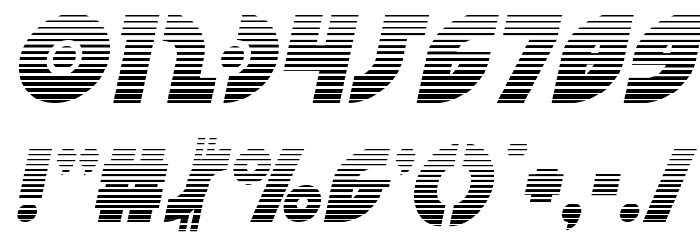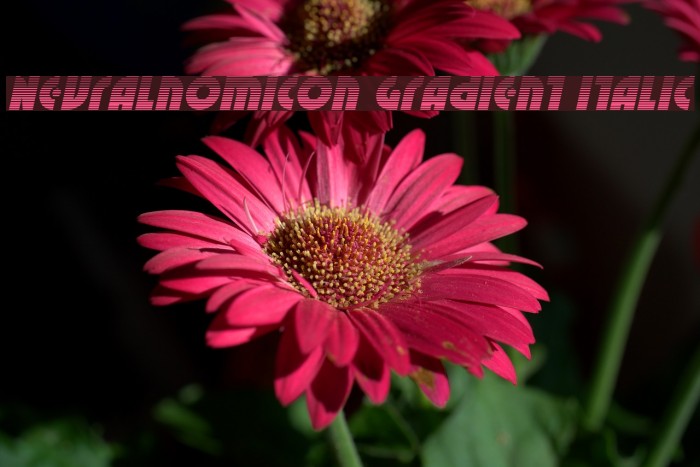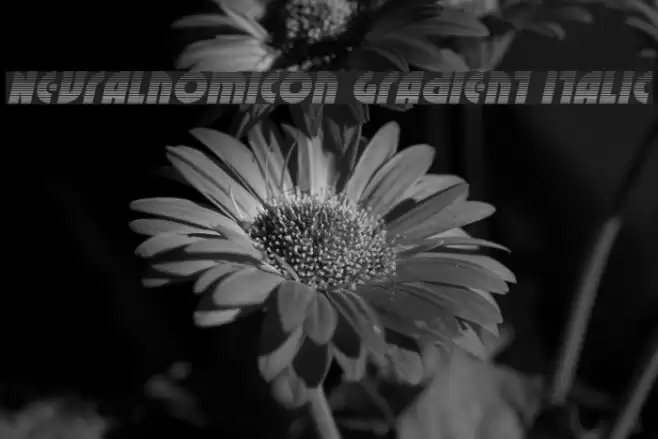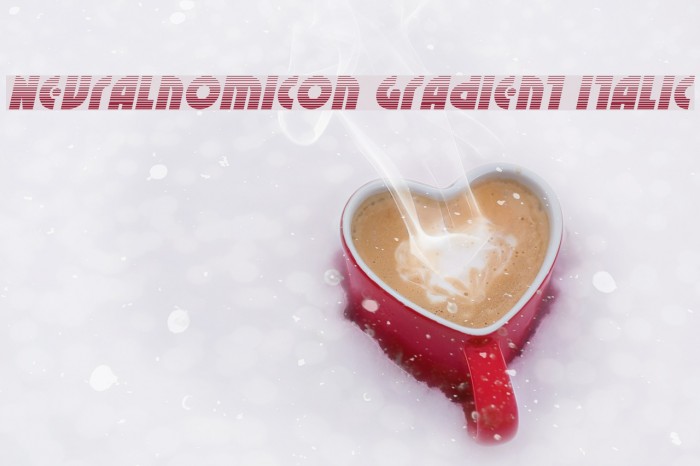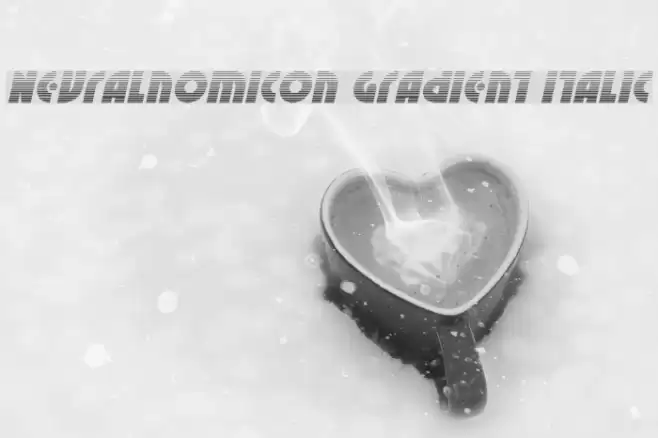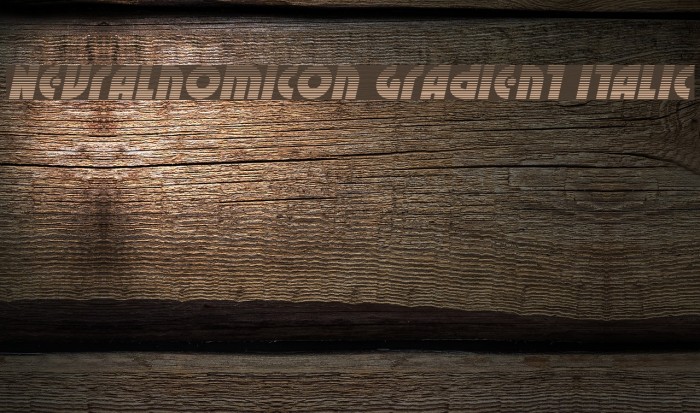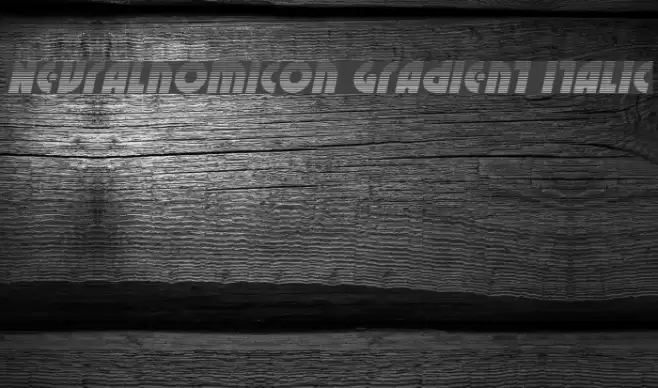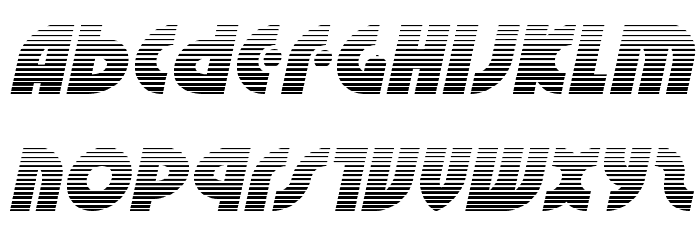
Neuralnomicon Gradient Italic Font
Neuralnomicon Gradient Italic Description
This font features a unique gradient effect created by horizontal lines that vary in thickness, giving it a dynamic and futuristic appearance. The characters are bold and italicized, with a distinct slant that adds to the sense of motion and modernity. The uppercase and lowercase letters maintain a consistent style, with rounded edges and a geometric structure. Numbers and special characters are designed to match the overall aesthetic, ensuring a cohesive look across all text elements. This font is ideal for projects that require a bold, eye-catching design with a modern twist.
A bold, italicized font with a gradient effect and futuristic style from Futuristic fonts.
- Proposed Projects: Ideal for sci-fi themed posters, modern branding, digital artwork, and technology-related presentations.